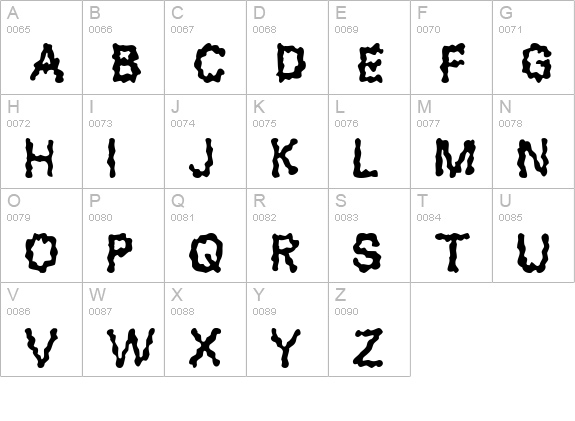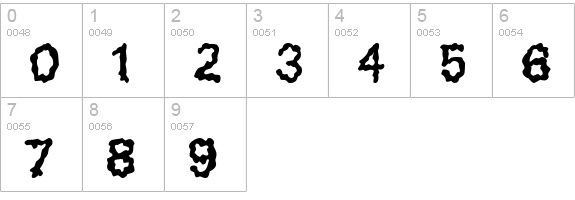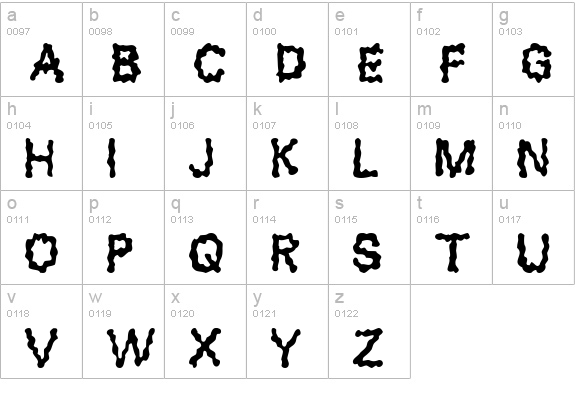
Introducing Blobs font, a playful and quirky typeface that will add a touch of fun to your design projects. With its rounded edges and irregular shapes, Blobs font exudes a sense of whimsy and creativity. Perfect for anything from children's books to party invitations, this font is sure to bring a smile to your audience's face. And the best part? Blobs font is completely free to download at FontsMarket.com! So go ahead and unleash your creativity with this unique and charming typeface. Let Blobs font be the perfect addition to your font collection, ready to brighten up any project with its cheerful and distinctive style.